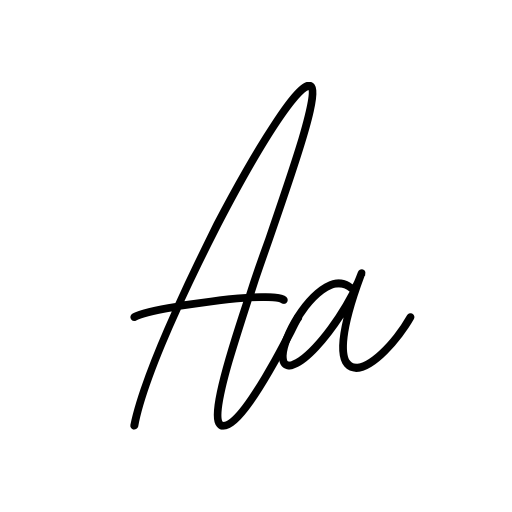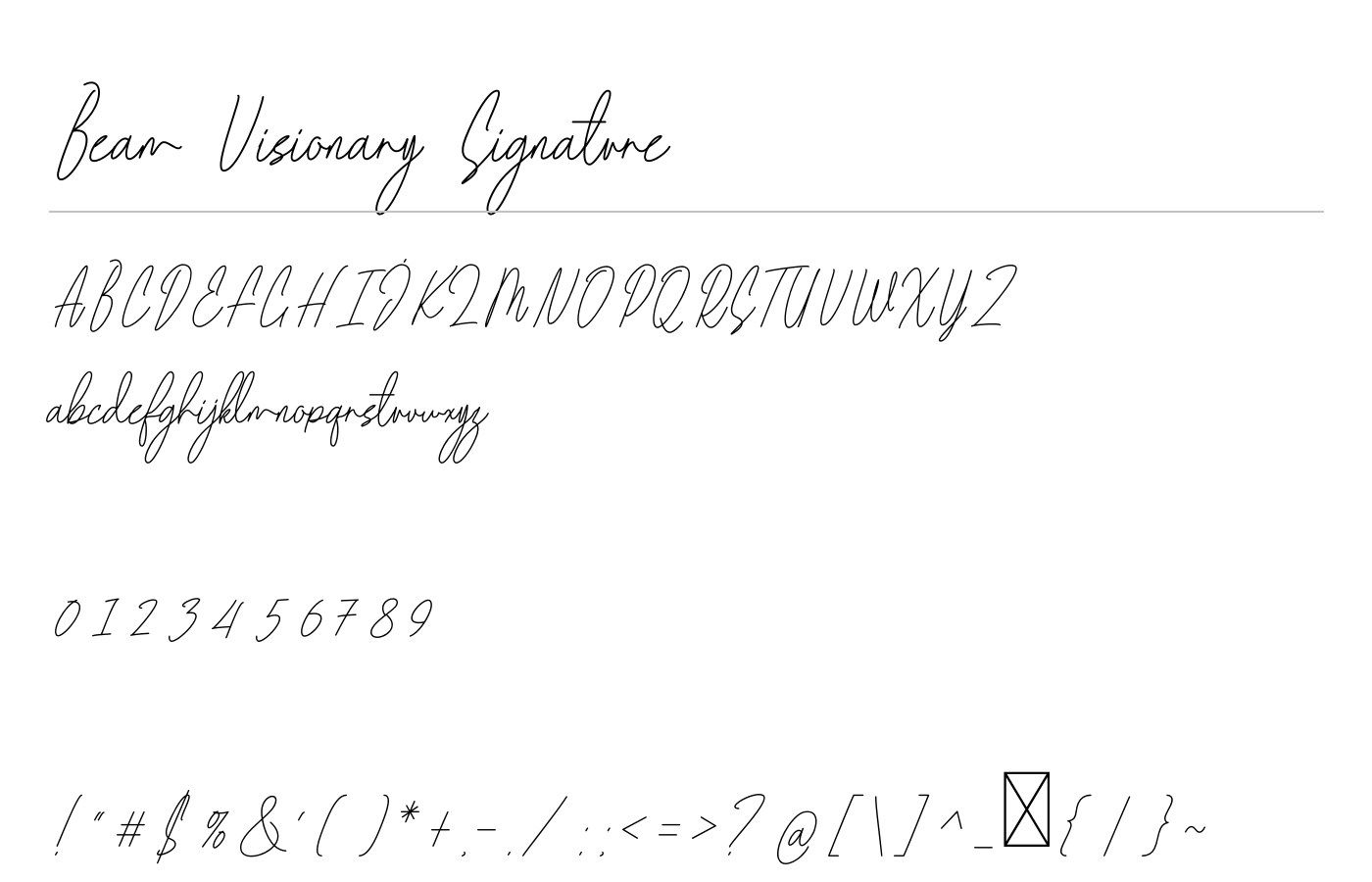
Beam Visionary is an elegant, thin script font that mimics natural, flowing handwriting with its delicate, slightly slanted letterforms. Its light weight and airy style give it a personal, sophisticated charm, making it ideal for creative branding, signatures, invitations, and fashion-related projects where a graceful, intimate touch is desired. This font works best in large sizes, such as logos or headlines, to showcase its refined, handwritten personality.
Beam Visionary Font
About Beam Visionary Font
| Font family | Beam Visionary Font |
| Designer | Toni Studio |